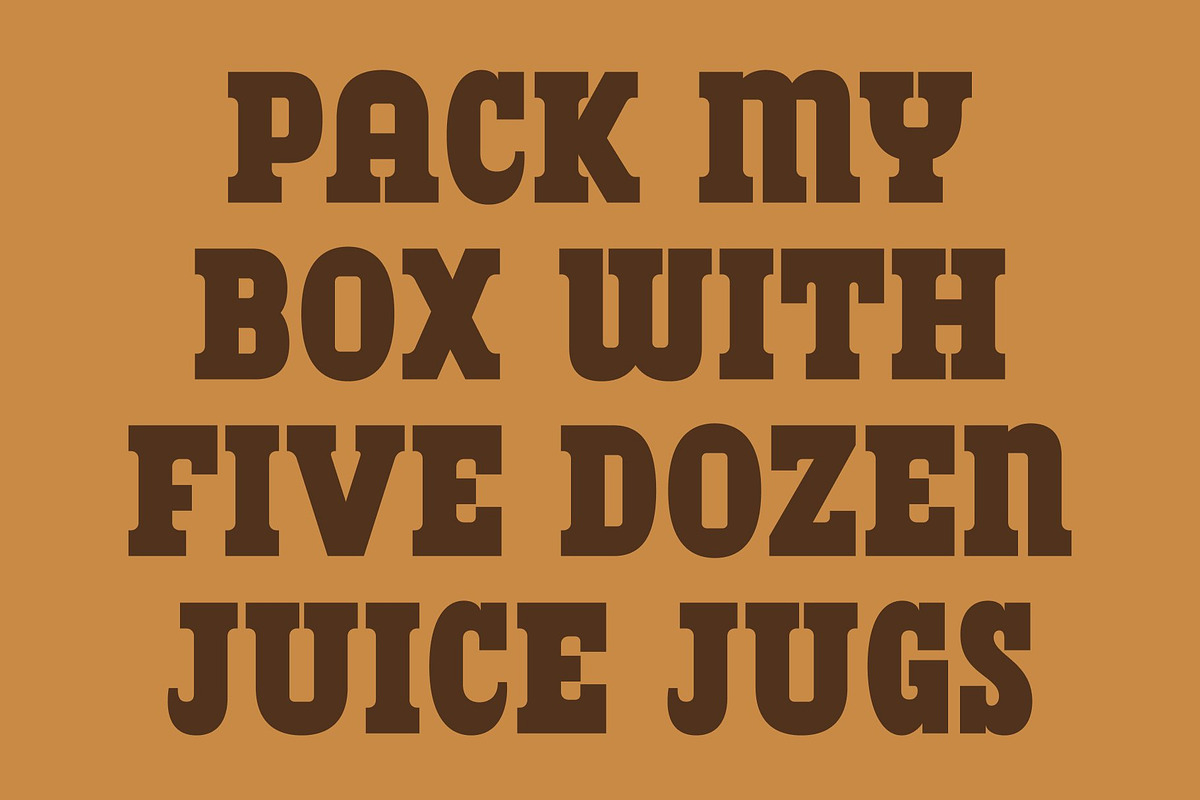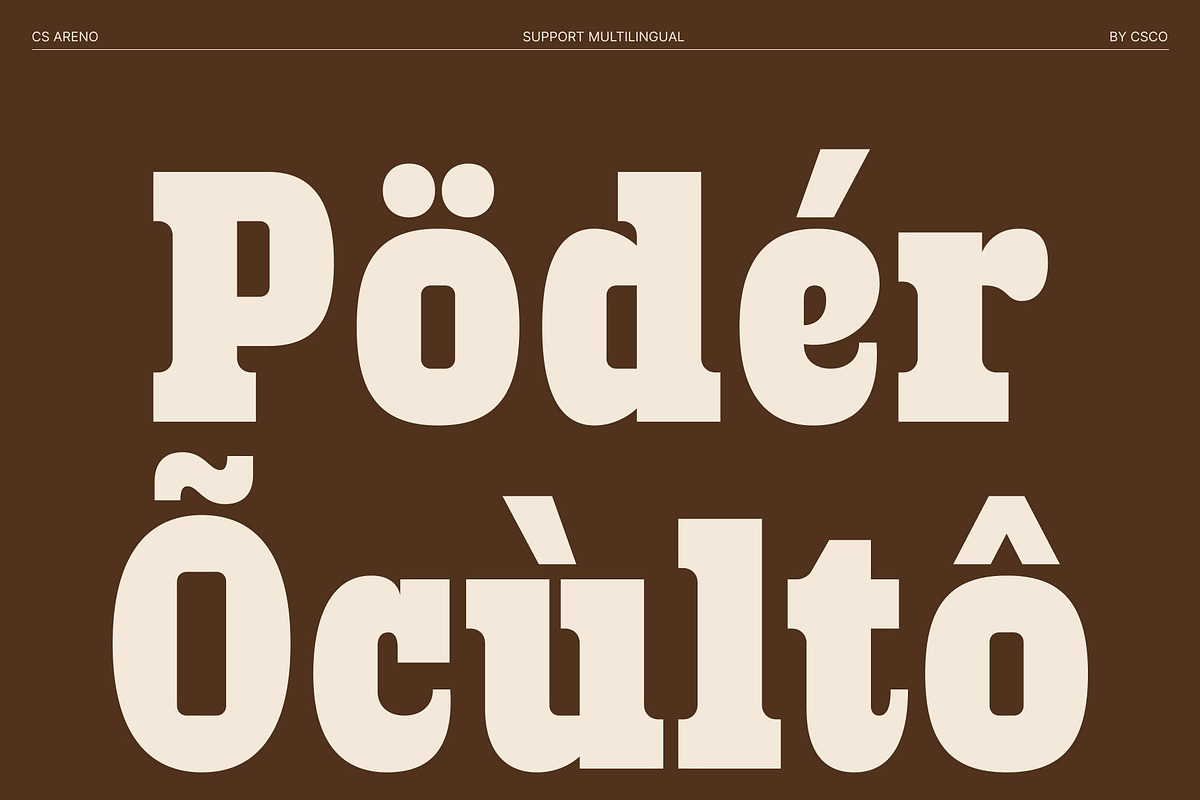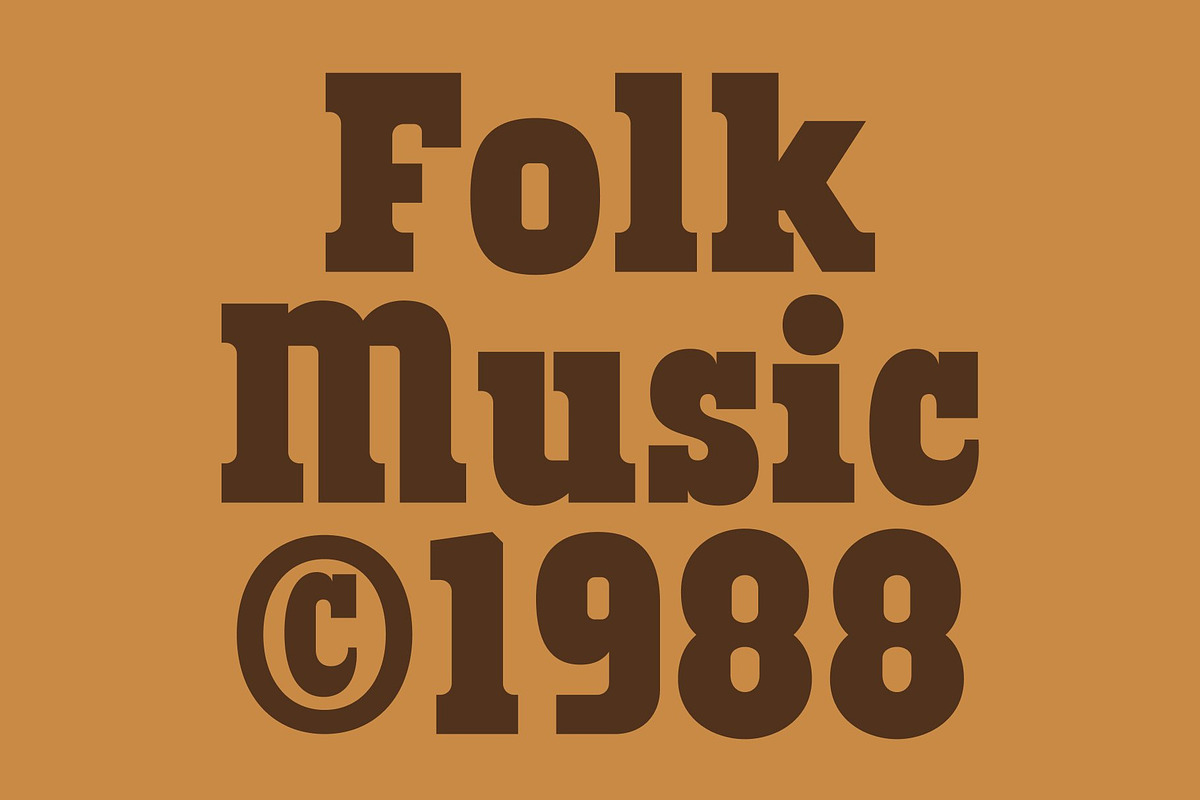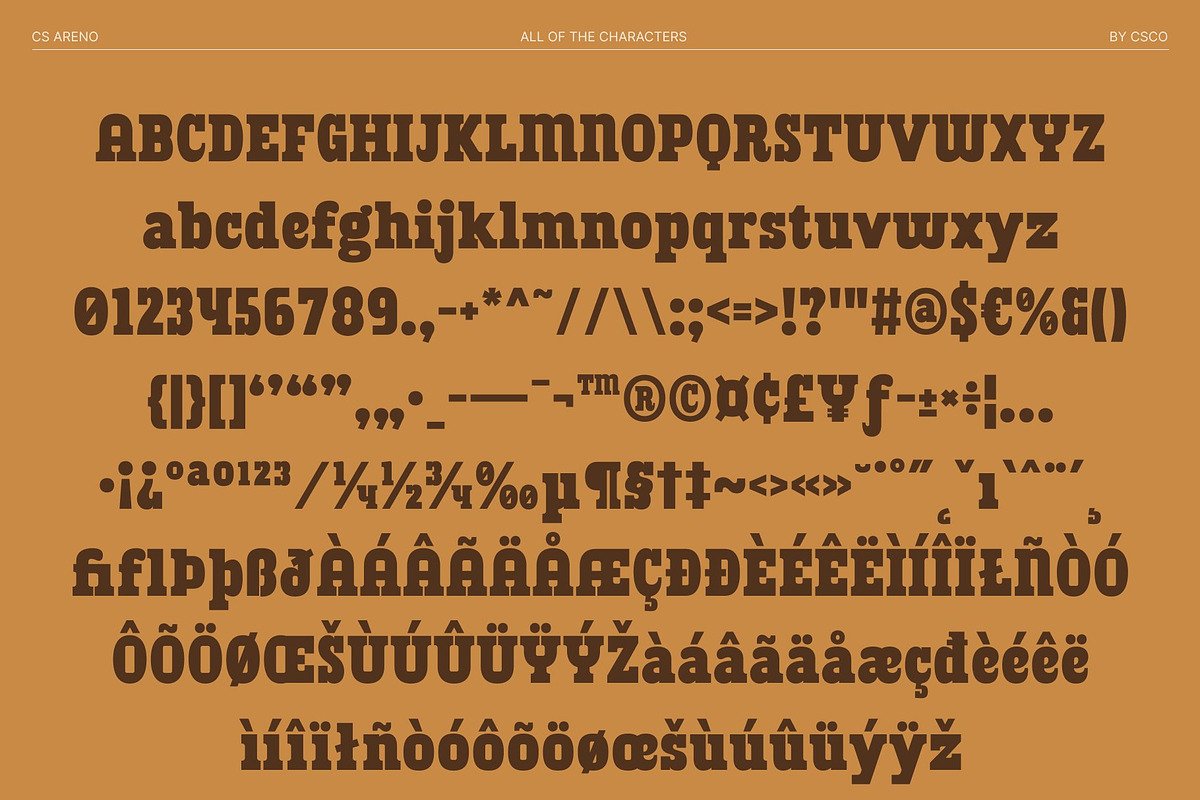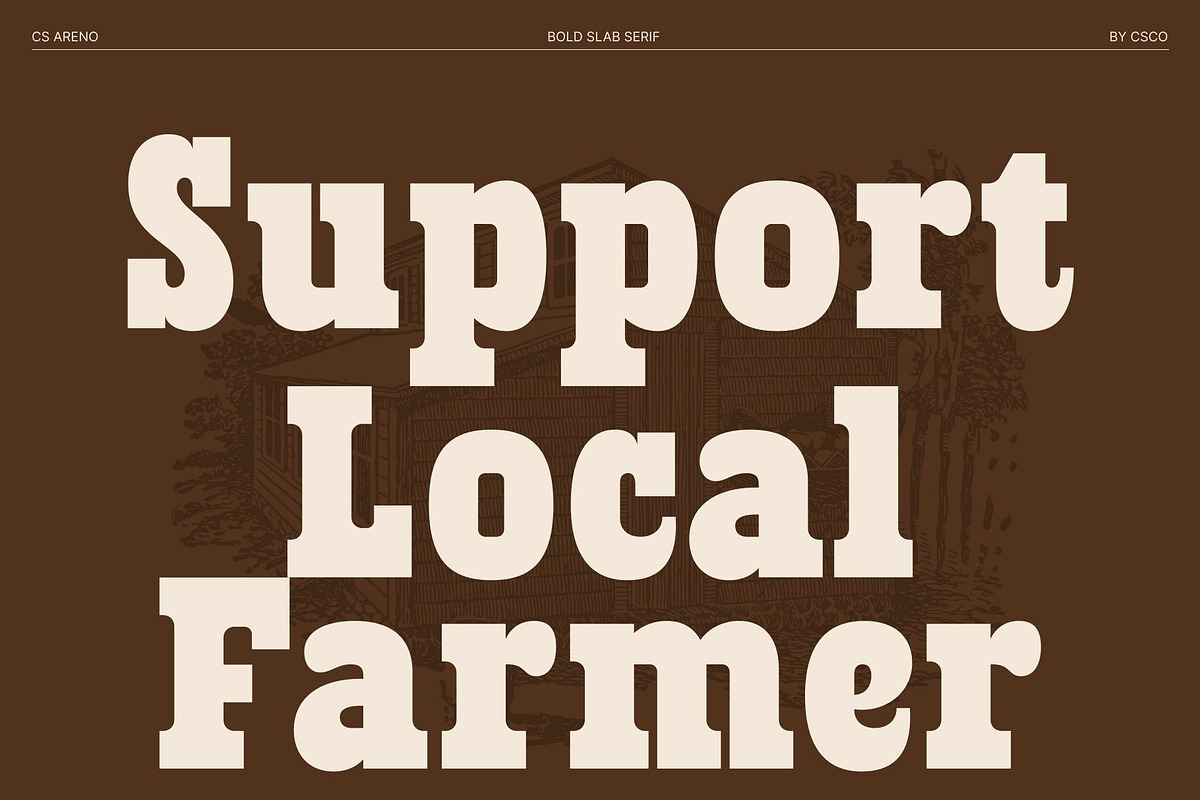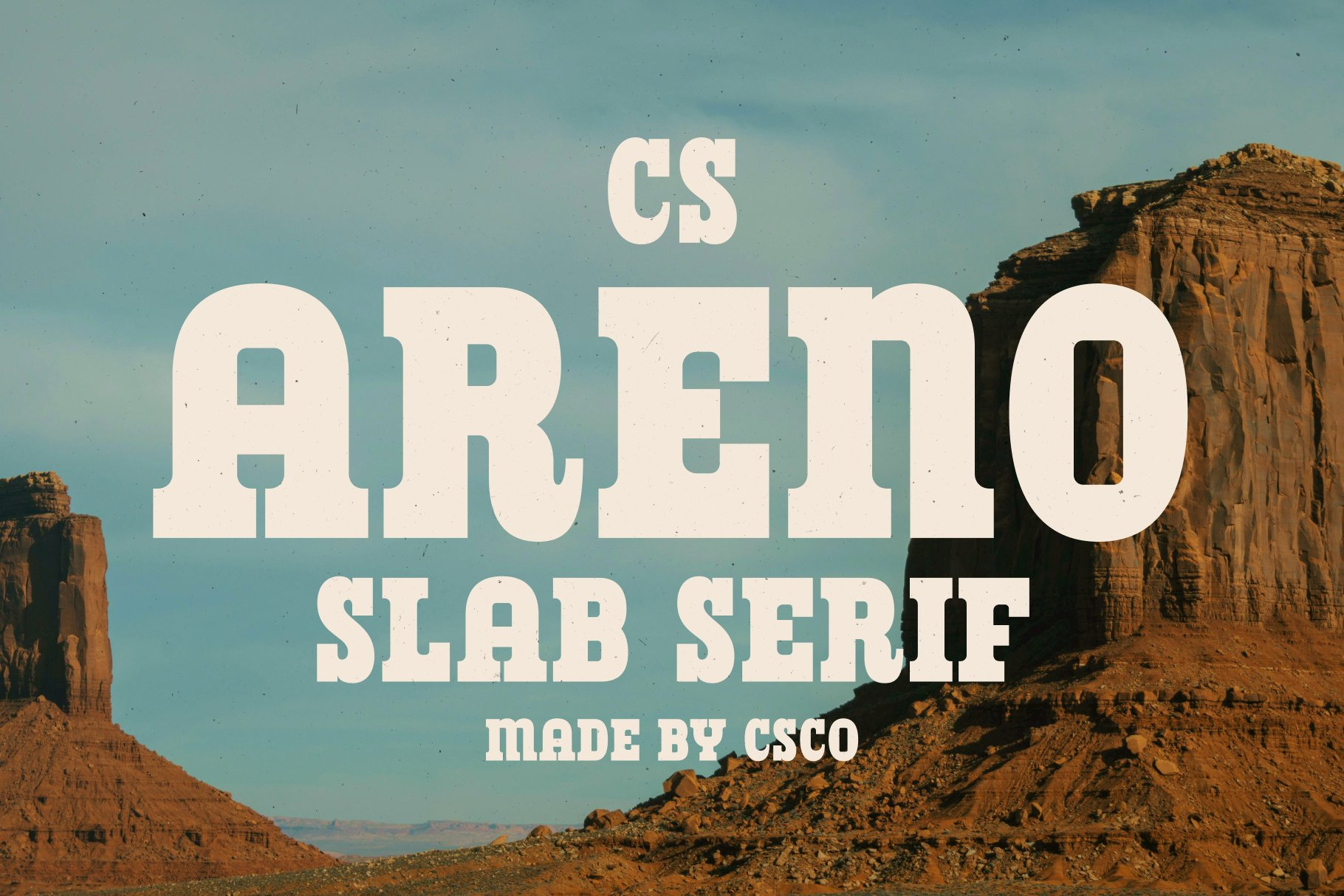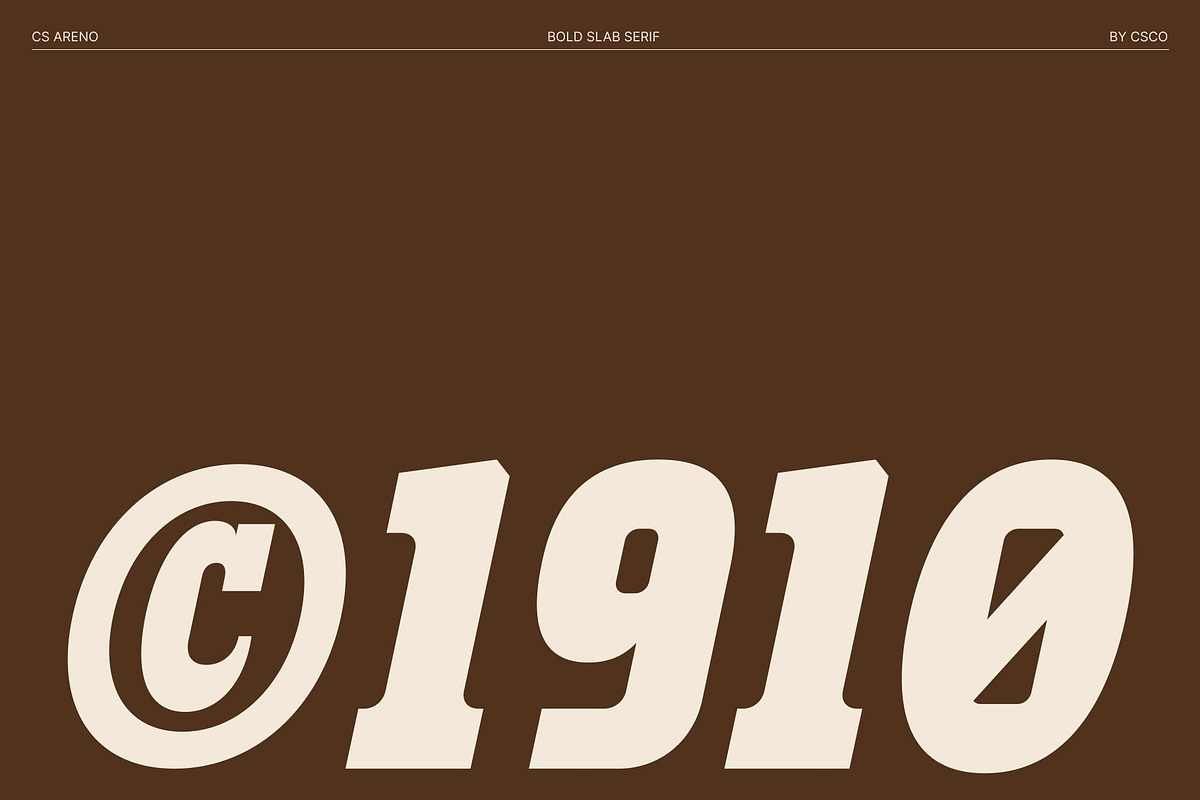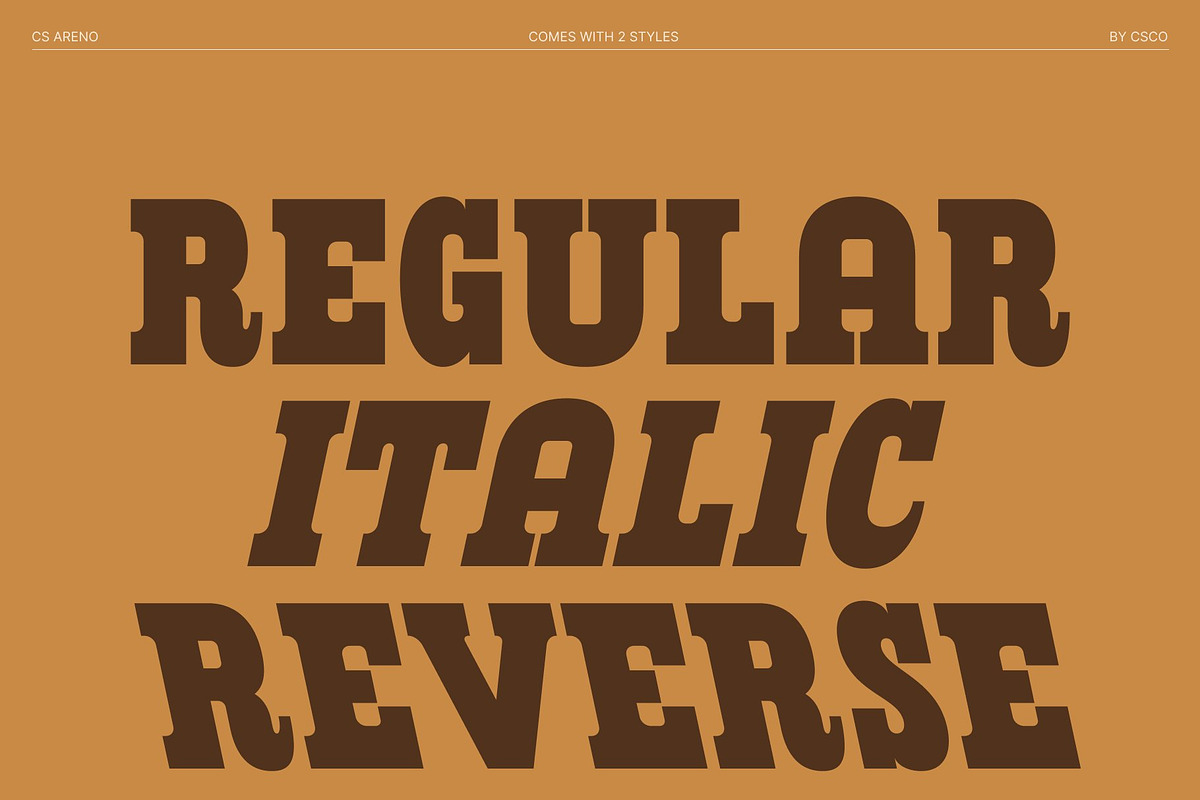
CS Areno – Slab Serif Font
CS Areno – Retro Slab Serif with Bold, Assertive Style
Retro Slab Serif Forms with Strong, Confident Character This is a slab serif font designed to bring together retro charm and modern assertiveness. Its bold serifs, sturdy structure, and vintage-inspired shapes create a confident visual identity that stands out instantly. Perfect for designers who want a touch of nostalgia paired with a strong, impactful presence, delivers both style and strength in every letter.
Built for Maximum Readability and Striking Display Crafted for clarity and visibility, excels in display settings. Its thick strokes and stable proportions make it highly readable from long distances, ensuring your message remains bold and unmistakable. This makes it the ideal choice for headlines, posters, advertisements, billboards, and any project that demands immediate attention and clear communication.
Modern Feel with a Sturdy, Timeless Impression While rooted in retro aesthetics, offers a modern twist through clean geometry and assertive letterforms. Its sturdy slab serifs and balanced shapes give it a stable, dependable feel that works beautifully for branding and promotional materials.
Perfect for Bold Branding, Sports Visuals, and Dynamic Posters This font adapts well to a variety of design contexts, especially those requiring energy and impact. Its assertive style makes it suitable for sports graphics, powerful branding identities, event posters, and bold packaging. With its retro spirit and strong slab serif construction, ensures every design feels dynamic, memorable, and visually commanding.